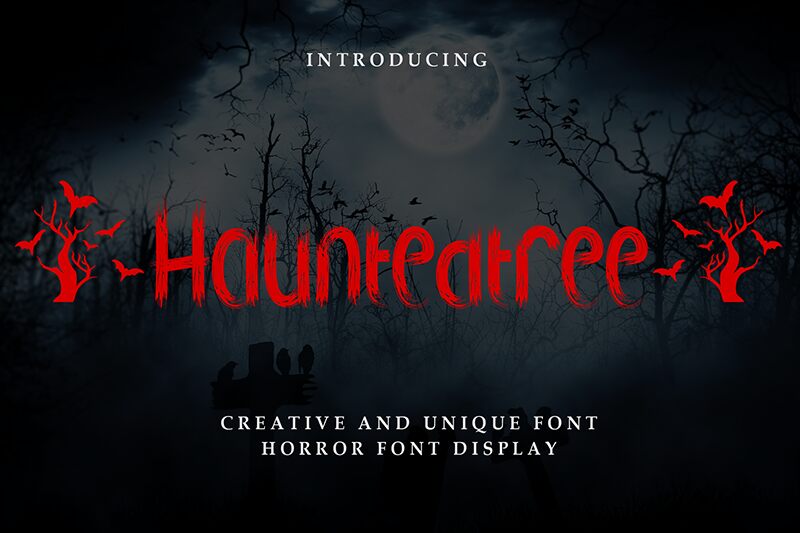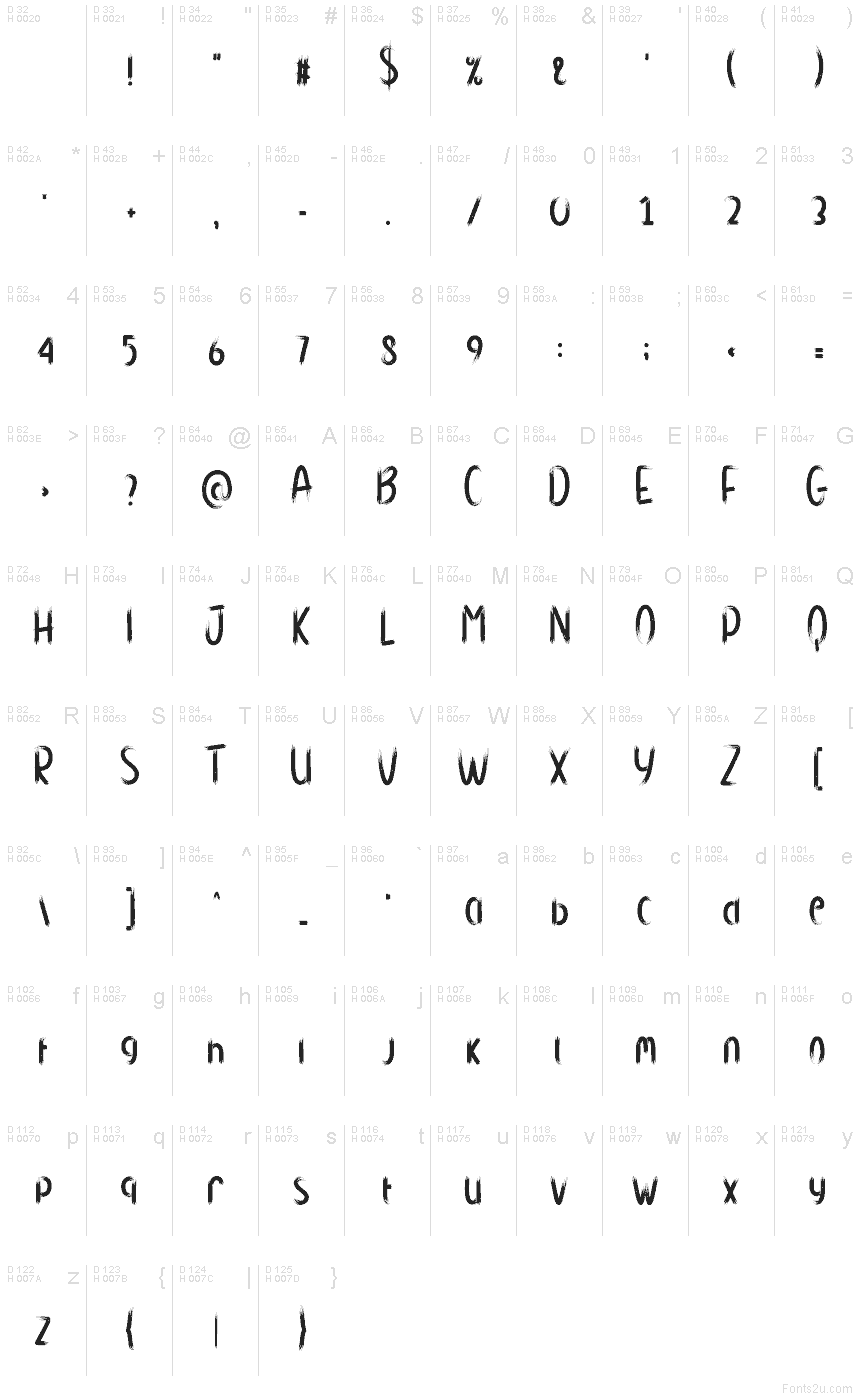
Hauntedtree
Hauntedtree font by Andi Moz is a free Halloween display font. Its thorny, brush-scratched strokes look like windblown twigs, with inky bristles and curling roots that creep off the baseline. The texture is gritty and uneven in a good way—bold enough for headlines, but wild enough to feel haunted without turning to sludge.
Using Hauntedtree, your spooky visuals get instant atmosphere for event posters, haunted house flyers, party invitations, seasonal banners, candy packaging, and YouTube thumbnails. This free font carries a dramatic rhythm that reads well at large sizes and glows on dark backgrounds. Pair it with a clean geometric sans for body copy, and give it a touch of extra letterspacing for maximum shiver.